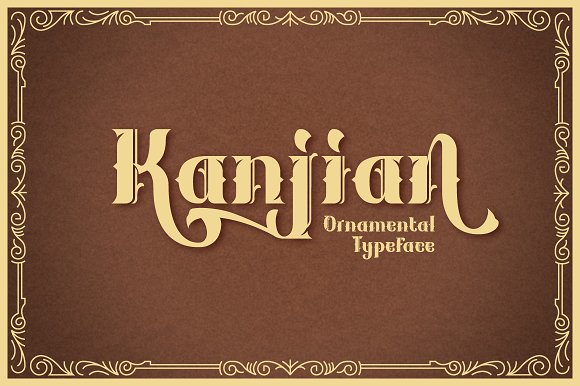
Welcome to the realm of Kanjian, an extraordinary display font crafted by the ingenious minds at Arterfak Project. A font that dances across your screen, captivating and enchanting with its artistic flair. Immerse yourself in a world of limitless creativity, where words ignite imagination and designs come alive.
Introducing Kanjian, an ornamental masterpiece that elevates your headlines and display texts to new heights. Its delicate strokes and intricate details command attention, adding a touch of elegance and sophistication to your creations. This font is not merely a tool; it's an art form, waiting to unleash your inner artist and transform your designs into breathtaking masterpieces.
With Kanjian, your words become visual poetry. Its carefully crafted glyphs, inspired by the beauty of ancient scripts, evoke a sense of timeless artistry. Elevate your branding, engage your audience, and create a lasting impression that lingers long after they've encountered your designs.
Kanjian is the perfect partner for designers, marketers, and creative professionals seeking to make an impact. Its versatility knows no bounds, effortlessly adapting to various projects, from logos and posters to social media posts and website designs. Let Kanjian be your muse, guiding you towards design excellence and captivating your audience with its enchanting aura.
Embrace the allure of Kanjian today and embark on a creative journey like never before. Witness the transformation as ordinary text metamorphosizes into captivating art, leaving your audience spellbound and inspired. Unlock the full potential of your creativity and let Kanjian be your guiding light towards design brilliance.